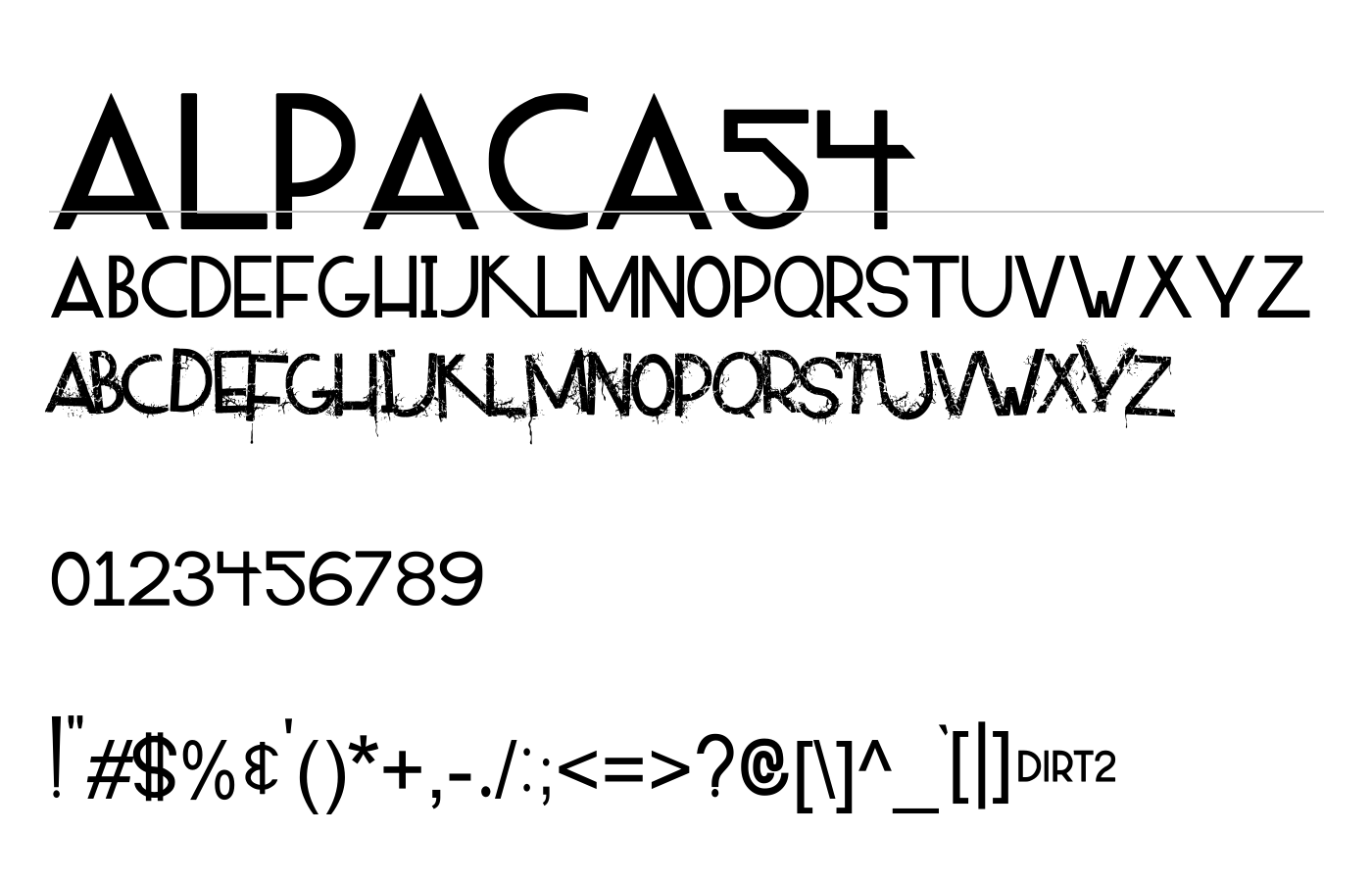
ALPACA54 is a distinctive sans serif font with a modern, geometric feel characterized by sharp angles and clean, consistent strokes. Its narrow letterforms combine elegance with a slightly playful edge, making it ideal for creative headlines, logos, and branding that seek a contemporary but approachable look. With its uppercase focus and unique character shapes, ALPACA54 works well in display contexts where style and personality need to stand out clearly.
ALPACA54 Font
About ALPACA54 Font